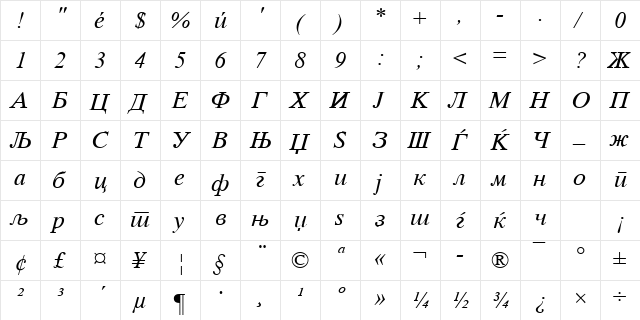
Macedonian Tms Italic
Design Context for Macedonian Tms Typeface
Macedonian Tms offers clean, dependable letterforms without strong stylistic allegiance, making it a practical choice for designers who need flexibility. Its italic angle brings a sense of urgency and motion to the letterforms.
Pro Tip: Try Macedonian Tms for annotation and caption copy alongside an upright companion — the contrast in angle creates a dynamic but ordered typographic system.